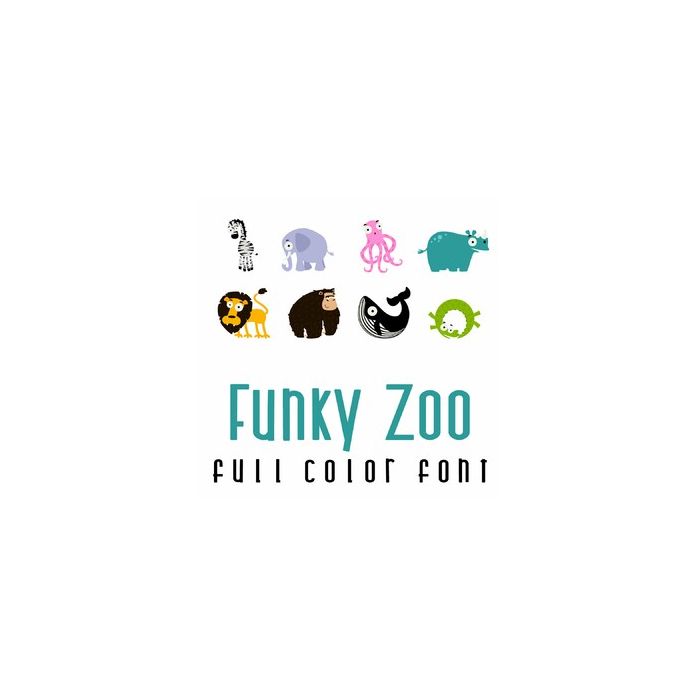
This adorable full color doodlebat font features 36 funky animal and sea life. Perfect for cards, crafts, gifts, decor, scrap book pages, planner stickers and more! Uses letters A-Z and numbers 0-9.